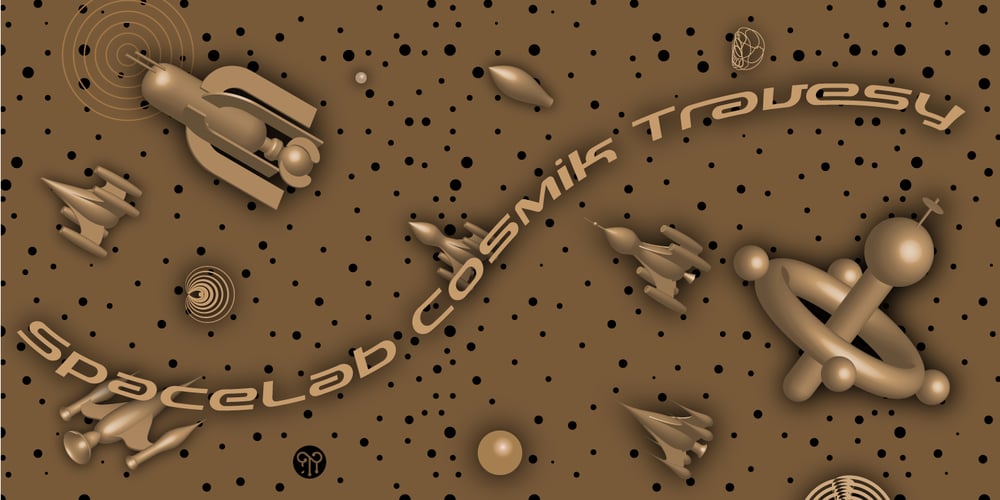
SpaceLab
SpaceLab font
SpaceLab Font Family was designed by John Moore and published by John Moore Type Foundry. SpaceLab contains 4 styles and family package options. As a display typeface in expanded form, SpaceLab is a futuristic font of rigorous geometric construction designed for headlines or to label the intergalactic ships and other electronic and mechanical devices of the future. SpaceLab has a set of ligatures that make it more versatile to use. SpaceLab comes in two versions: Regular, Regular-Italic, Bold and Bold-Italic.